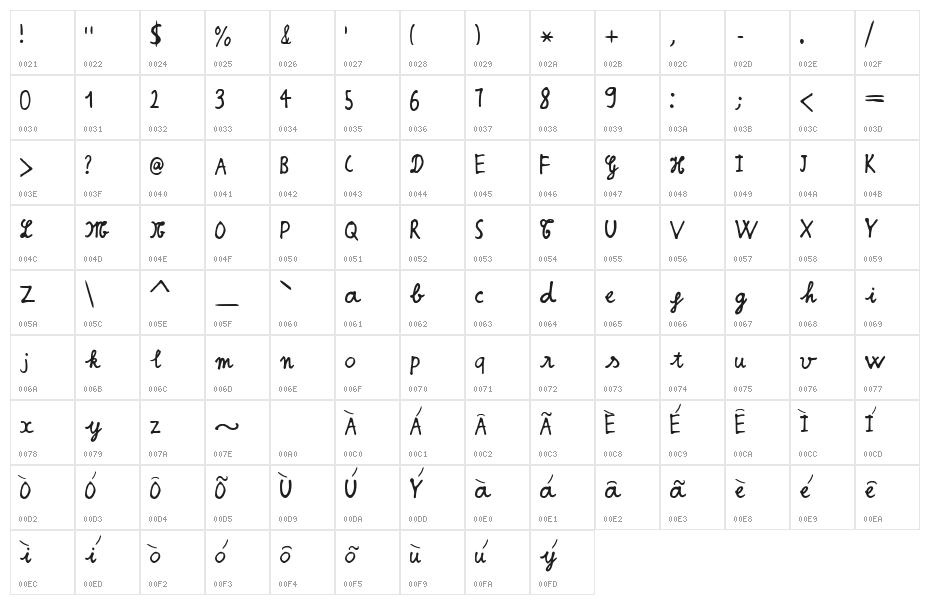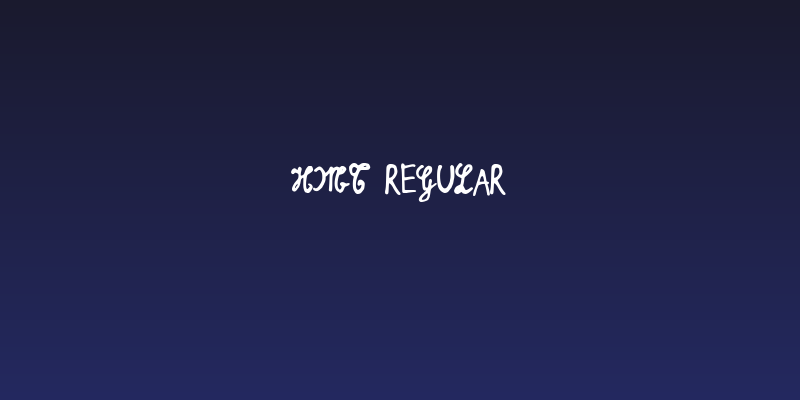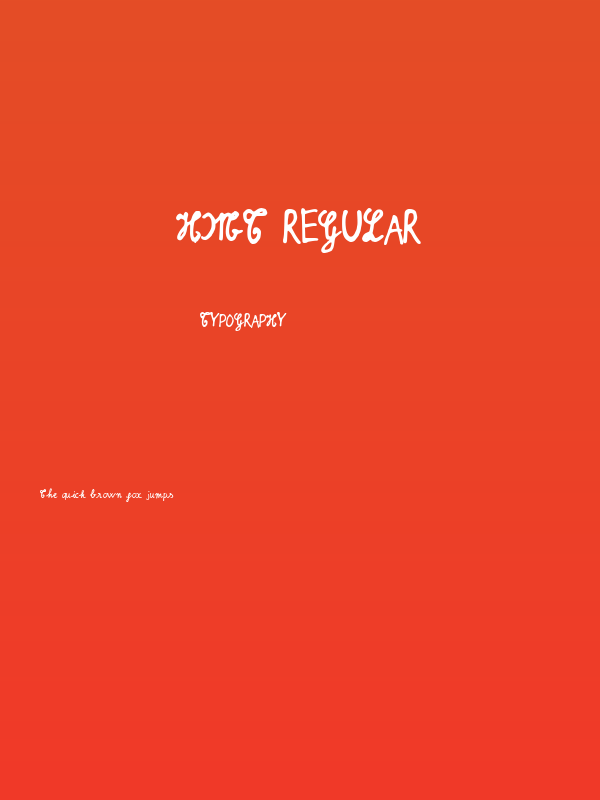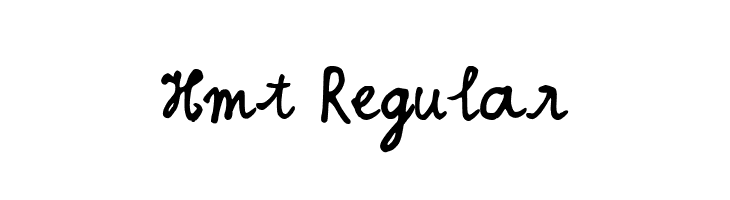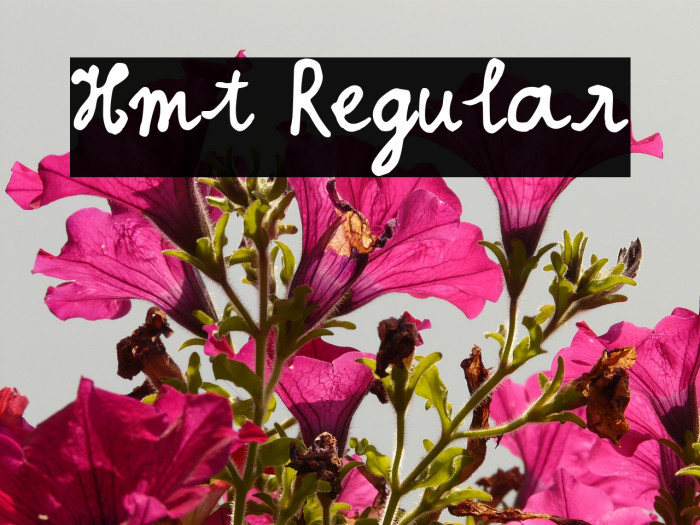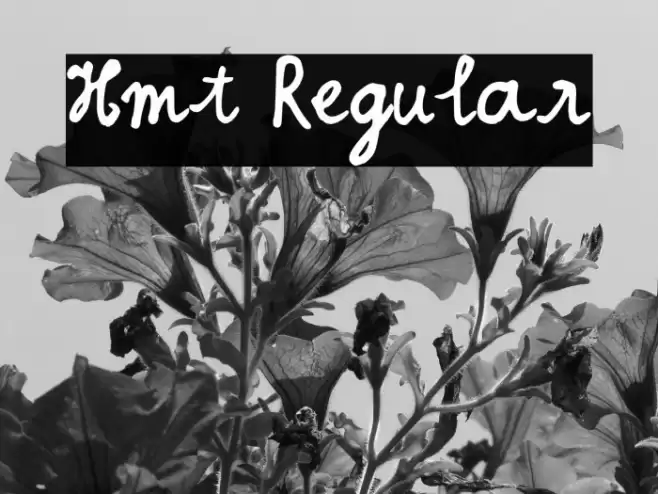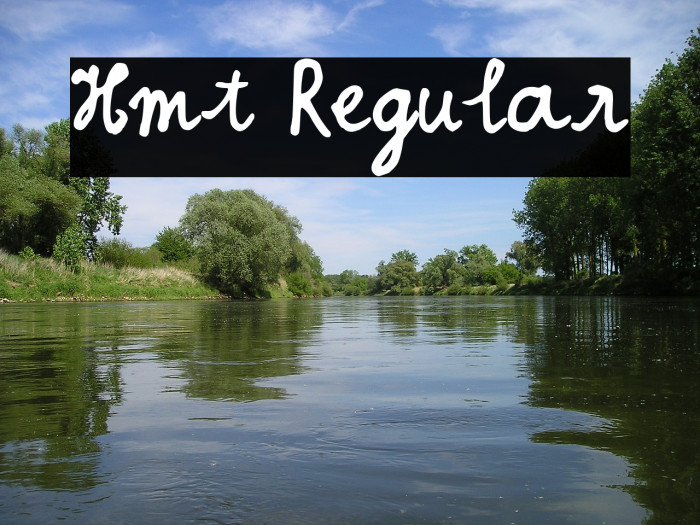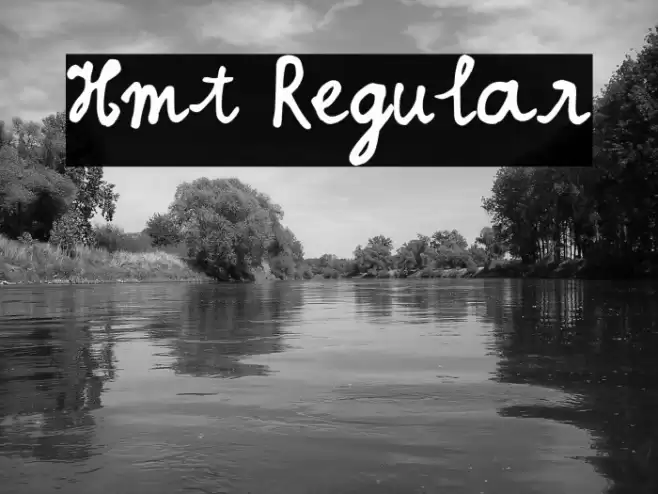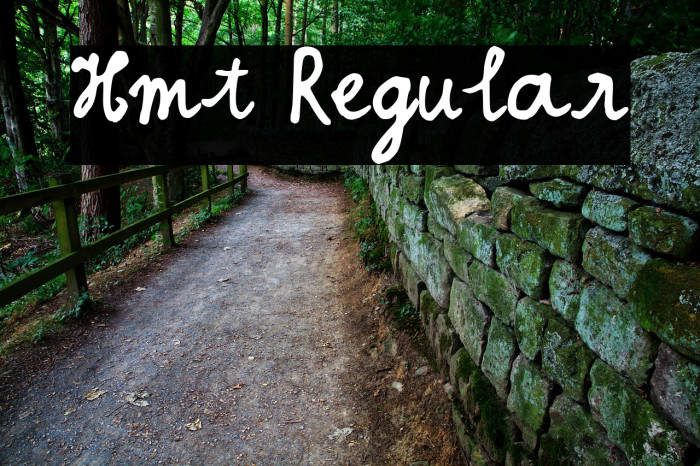
Hmt Regular Font
| Caz de utilizare | Logos, Invitations, Greeting Cards |
| Proiecte propuse | Ideal for greeting cards, invitations, personal branding, and creative projects that require a friendly and informal touch. |
| Autor | Fonts by Seemly Fonts |